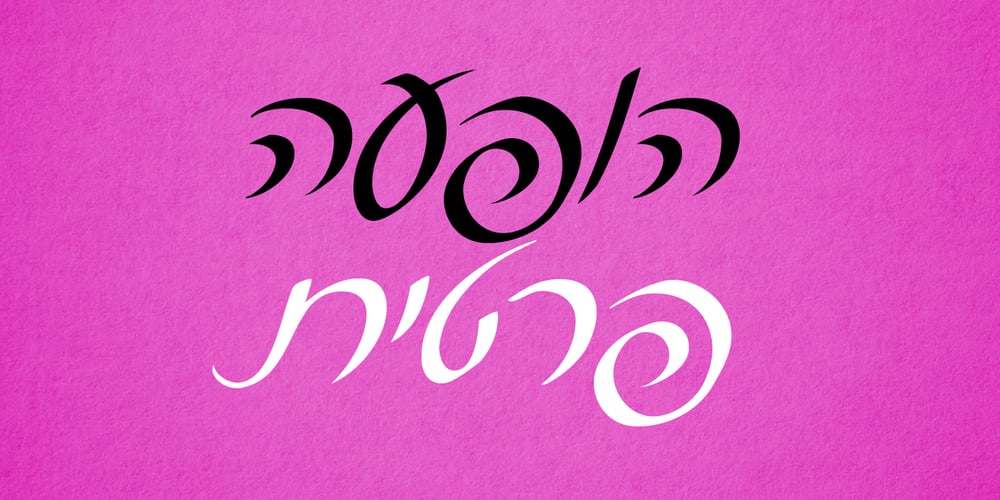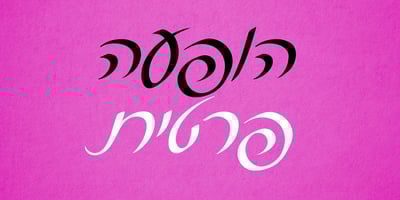
Korsiva MF Font Family was designed by Zeev Lipman and published by Masterfont. Korsiva MF contains 1 styles and family package options. One of a kind, this font is unique by its flow and contrast, enabling traditional typeface gain a new and clear flow and rhythm.